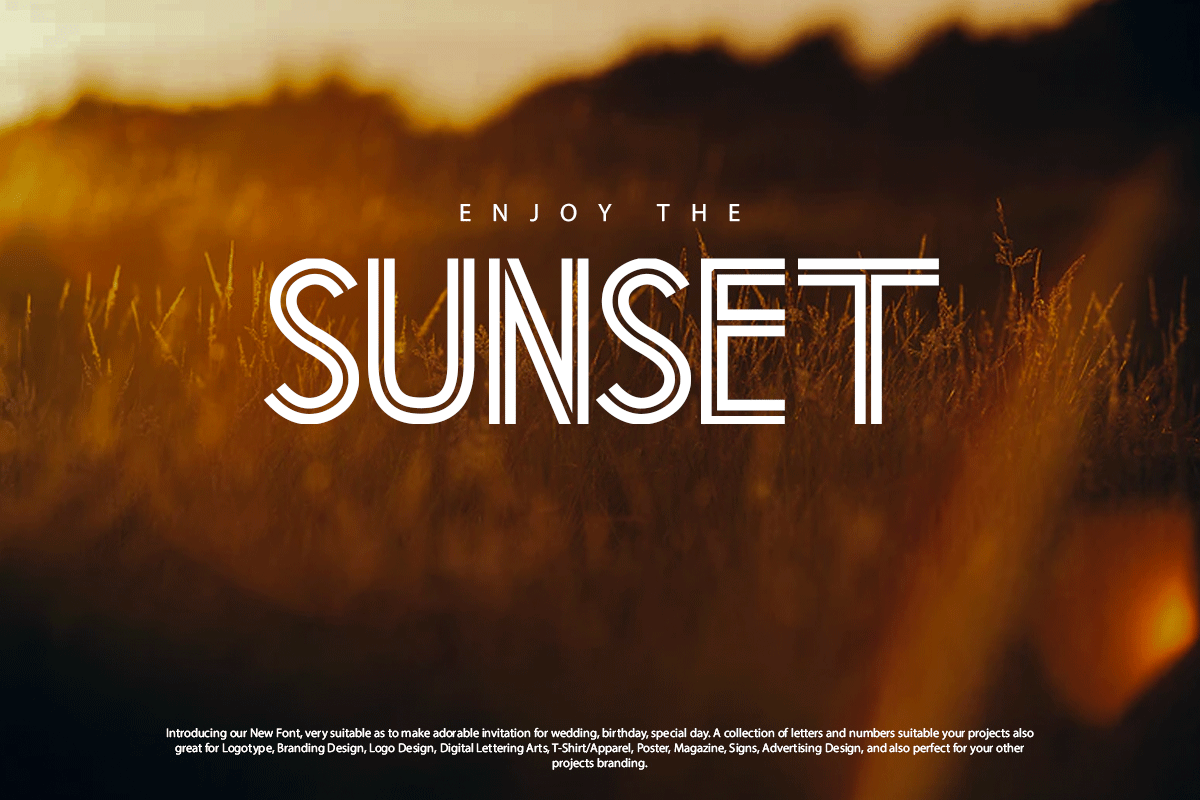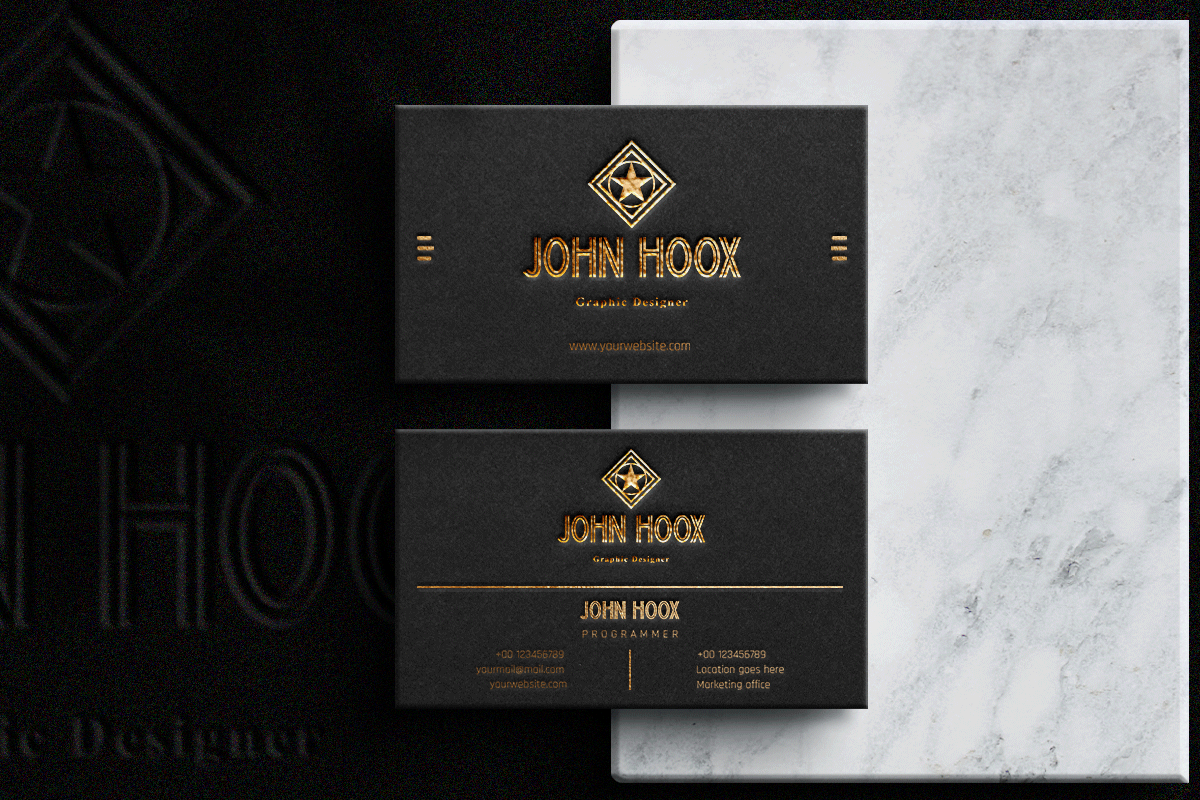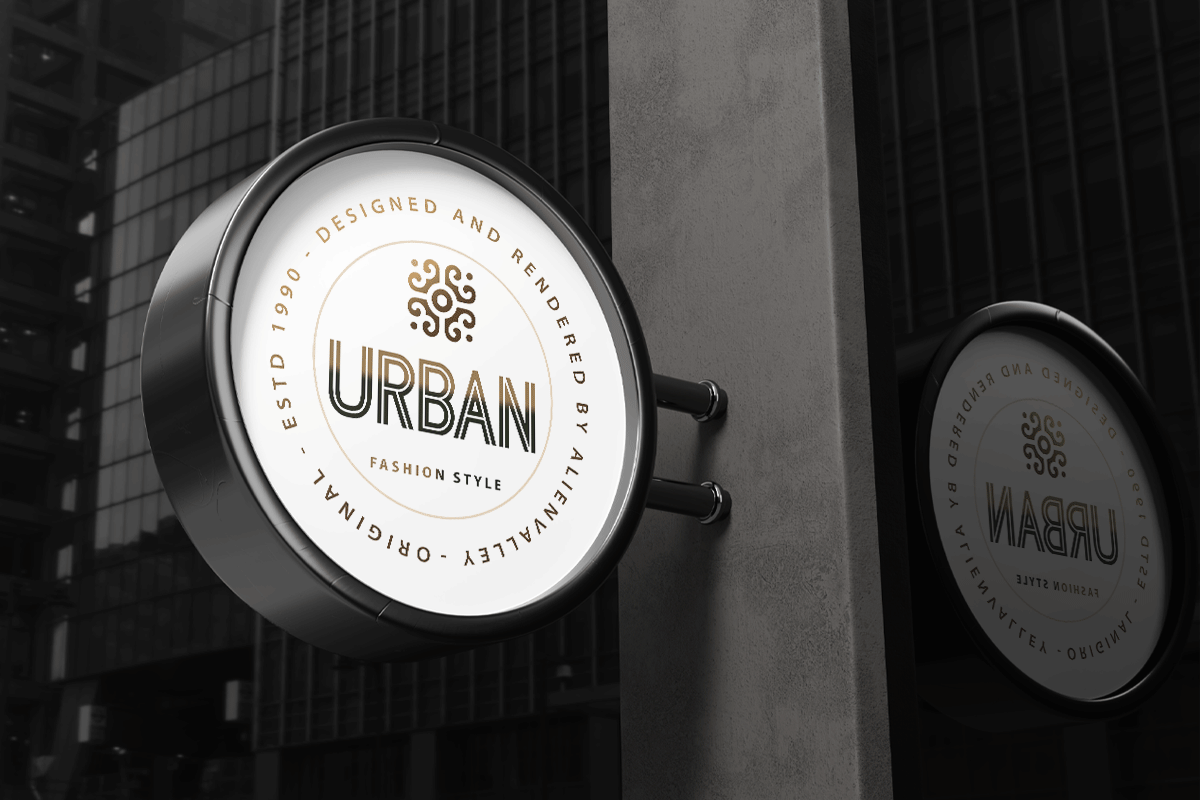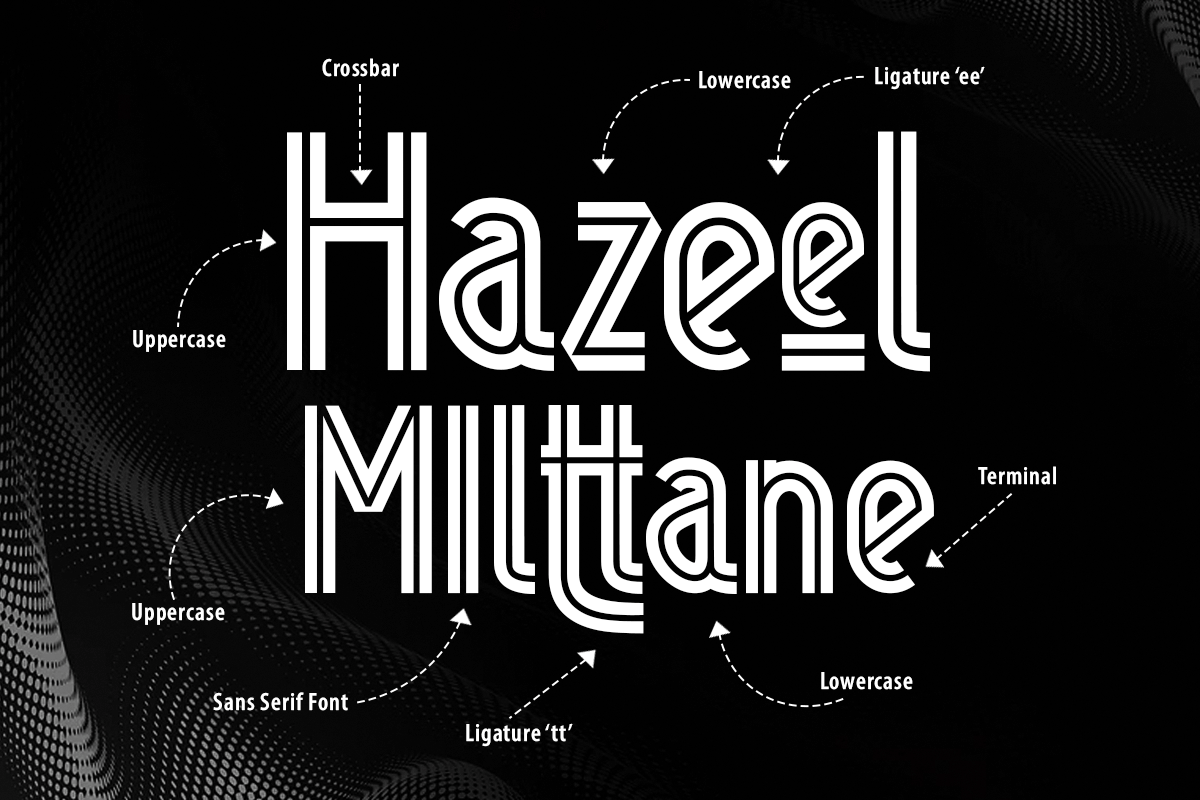
Wise Free Font
Wise Free Font showcases a sleek, versatile, and stylish display font. Whether you’re employing it for crafting, digital design, presentations, or crafting greeting cards, it’s an impeccable choice. This free typeface was designed by a talentedΒ Display Studio. If you like it don’t forget to check out the full version.